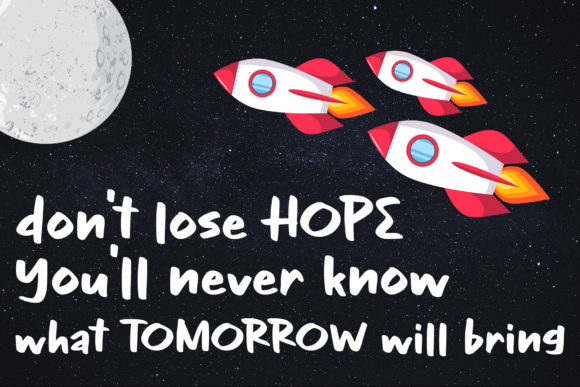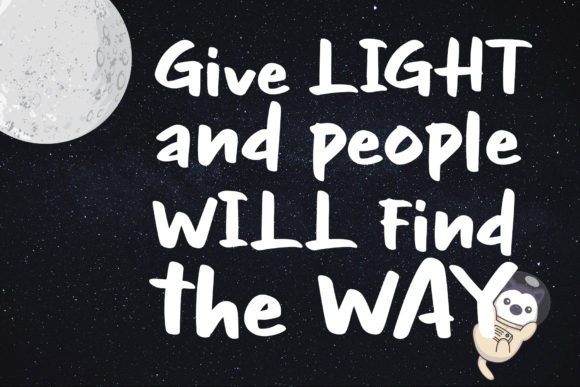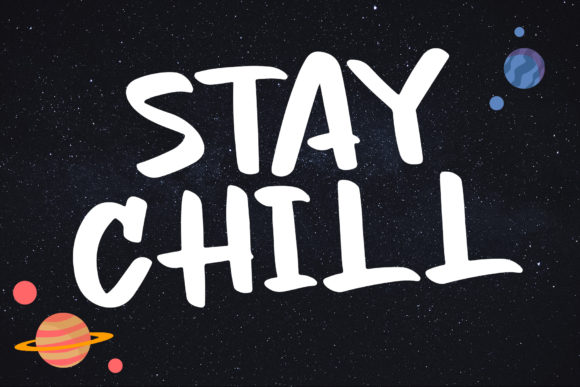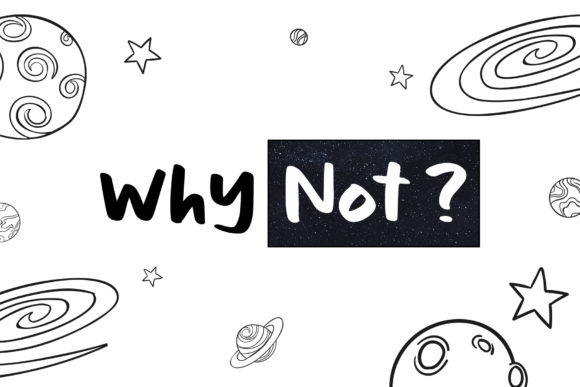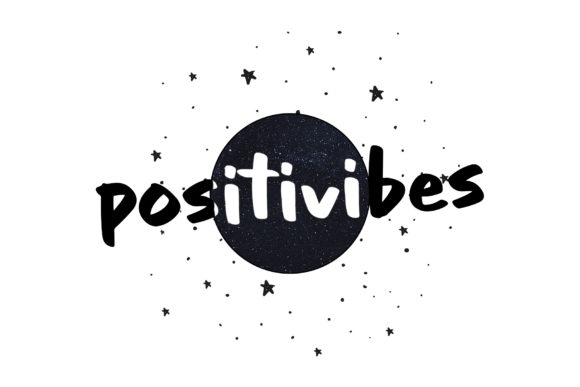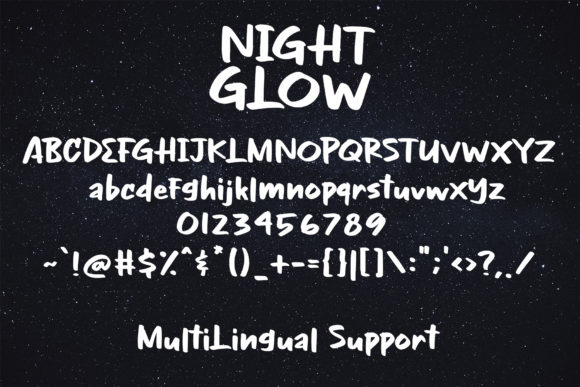
Introduction to Night Glow Font Font
Fonts play a crucial role in design, and the Night Glow Font font is a typeface that brings both character and versatility to any project. Whether you’re working on a branding project, a website, or a print design, the Night Glow Font font offers a unique style that can elevate your work.
Night Glow is a fun and bold handwritten brush font.
Its casual charm makes it appear wonderfully down-to-earth, readable and, ultimately, incredibly versatile .
Key Features of Night Glow Font Font
Why Choose Night Glow Font Font?
The Night Glow Font font is more than just a typeface – it’s a design tool that helps you communicate your message with style and clarity. Its unique character set and versatile design make it suitable for a wide range of applications, from elegant invitations to bold headlines.
With its carefully crafted letterforms and balanced proportions, the Night Glow Font font ensures readability and visual appeal across all mediums.
What makes Night Glow Font font special?
The Night Glow Font font stands out with its unique design, exceptional readability, and versatility across various design applications.